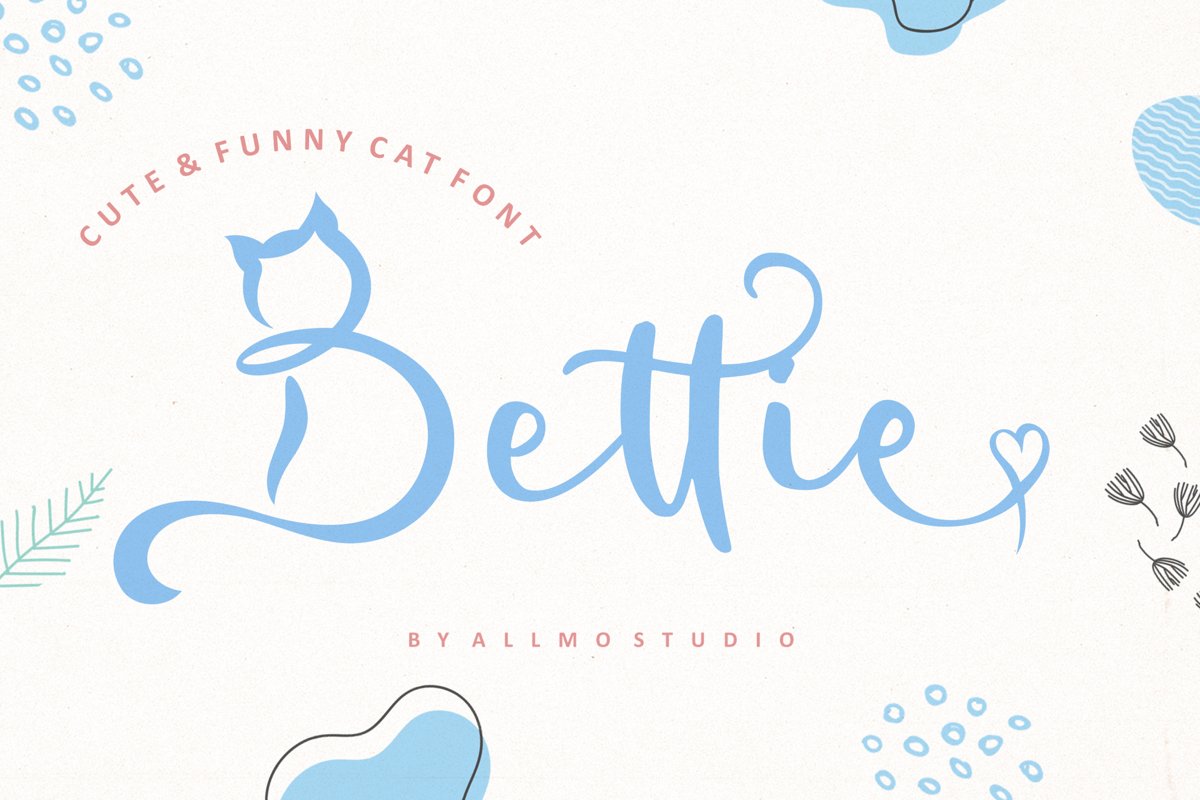
Bettie font will turn any creative idea into a true piece of art!
this font many style from the handwritten
and comes with special letter cat character and uppercase, lowercase, numerals,
punctuations and so many variations on each characters include opentype alternates.
This font is great for your creative project such as logos, posters, invitations cards,
packaging, badges, logotype, apparel design and Label.